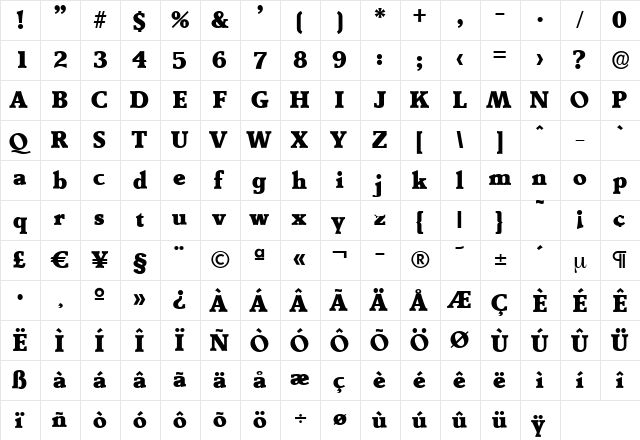
BenjaminBecker-Heavy Regular
Design Context for BenjaminBecker-Heavy Typeface
BenjaminBecker-Heavy offers clean, dependable letterforms without strong stylistic allegiance, making it a practical choice for designers who need flexibility.
Pro Tip: Use BenjaminBecker-Heavy in both headline and body roles to test its range before committing to a single application.